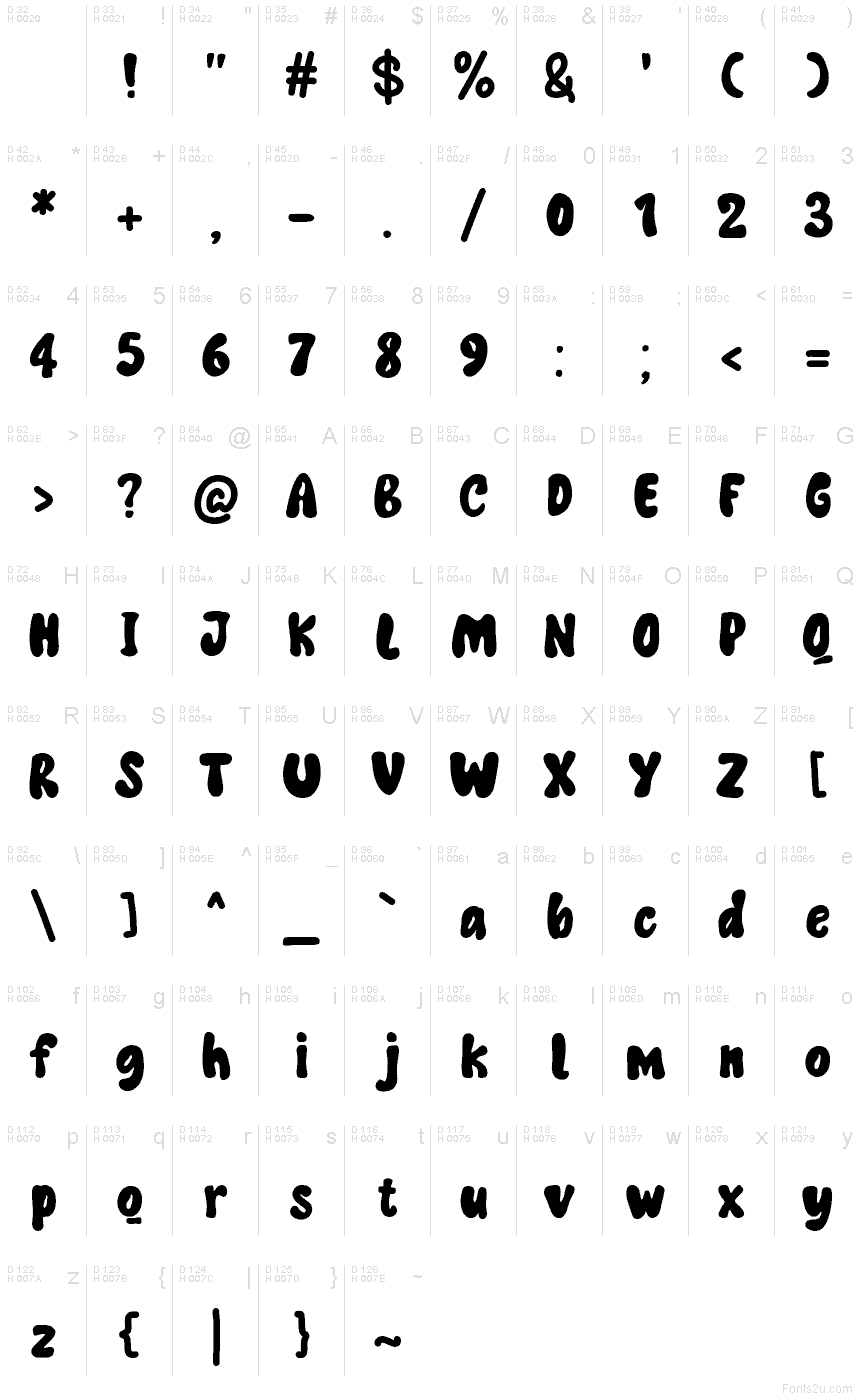
Dancing Ghost font by LetterStock Std is a free groovy display typeface that feels like it just floated out of a retro Halloween cartoon. Its bold, blobby shapes and slightly wobbly rhythm give letters a bouncy, hand-cut look, as if they were sculpted from soft, inky shadows. The curves are chunky and inviting rather than scary, so it brings friendly spooky energy instead of full-on horror.
Using Dancing Ghost, your titles instantly feel like a party is about to start-somewhere between a costume parade and a haunted funhouse. This free font shines on Halloween posters, trick-or-treat bags, party invitations, kids’ book covers, stickers, and playful social graphics. For balance, pair it with a clean, neutral sans serif in smaller text and let Dancing Ghost handle the big, loud headlines.